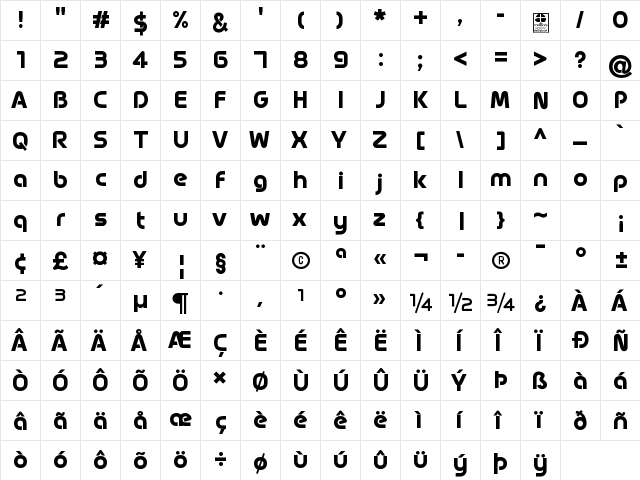
Magettas DEMO Bold
Bold · StudioTypo Mehmet Abac ·
Design Context for Magettas DEMO Typeface
Magettas DEMO takes a measured approach to typography — its balanced proportions and neutral character make it a reliable workhorse for both digital and print work. The heavy weight commands attention and anchors typographic hierarchies.